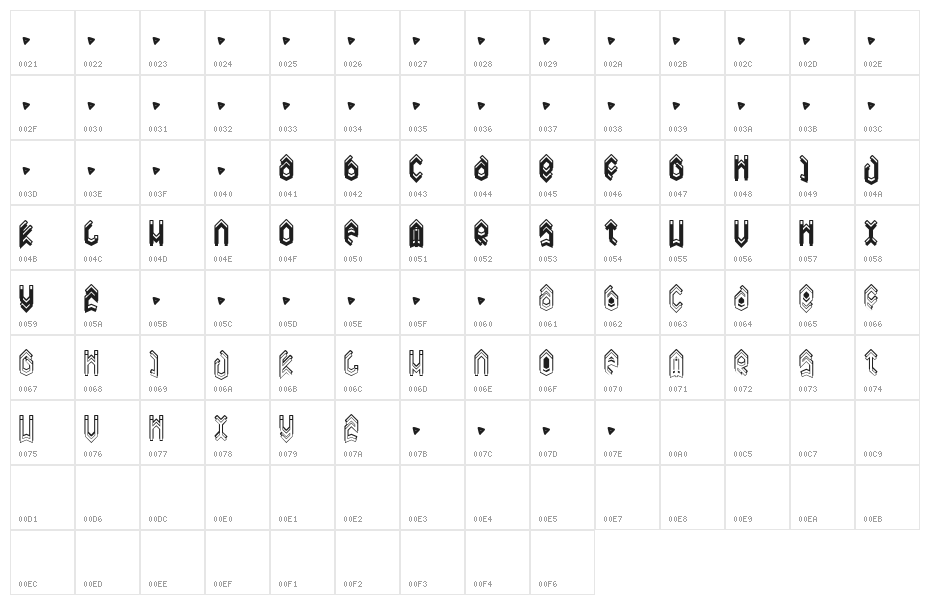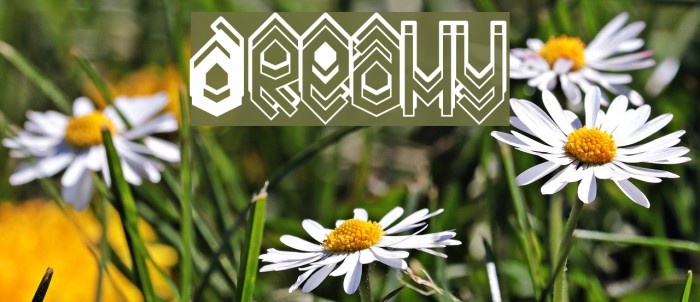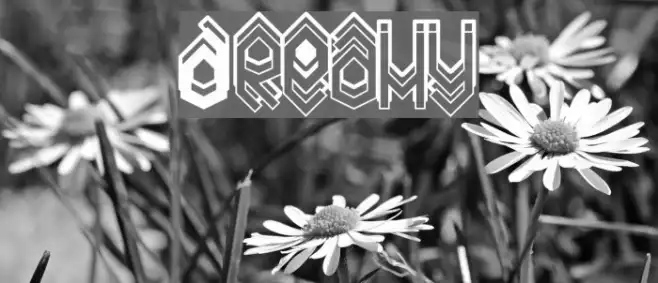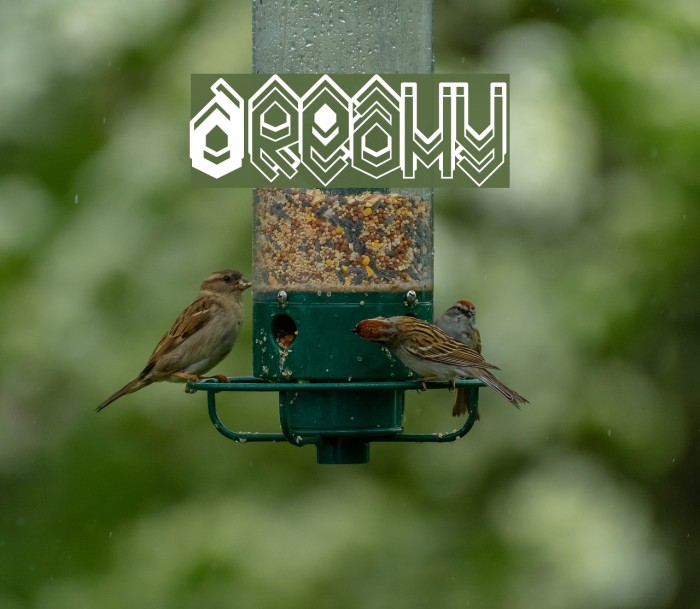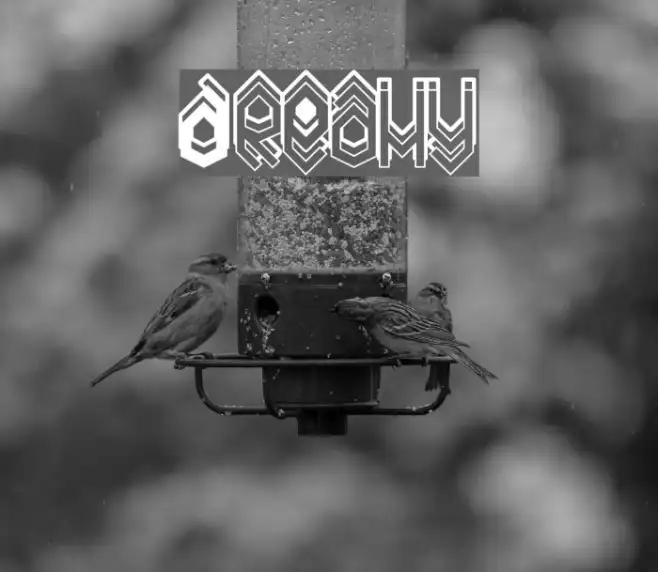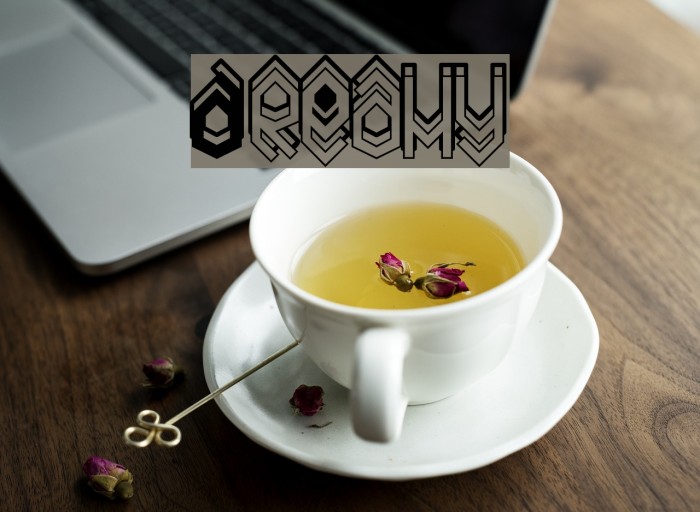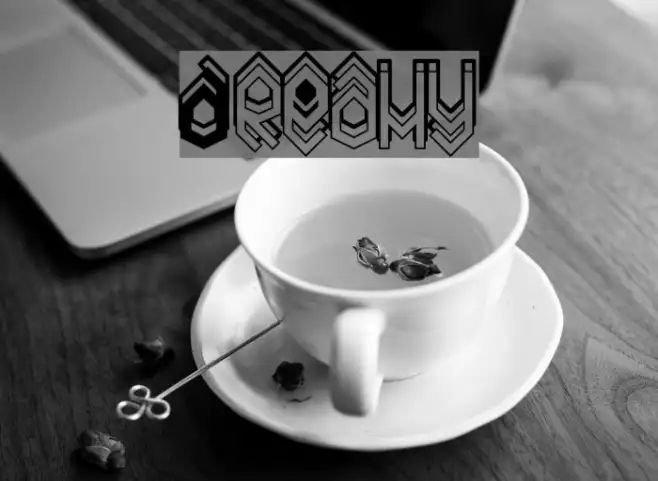
Dreamy Font
Dreamy Description
This font features a bold, geometric design with a three-dimensional effect, creating a striking and dynamic appearance. The letters are constructed with thick lines and sharp angles, giving them a blocky and robust look. The use of shadowing enhances the 3D illusion, making each character appear as if it is popping off the page. The uppercase and lowercase letters maintain a consistent style, while the numbers and special characters follow the same bold and angular theme. This font is ideal for projects that require a strong visual impact and a modern, edgy aesthetic.
| Proposed Projects | Ideal for posters, logos, video game titles, and any design requiring a bold statement. |